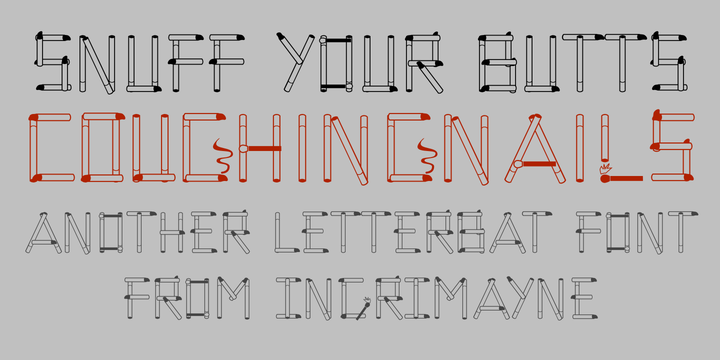
Coughing Nails
Designed by: Robert Schenk
Designed when: 1995
Design owned by: Ingrimayne Type
Coughing Nails
CoughingNails is a novelty font made up of cigarettes and an occasional match.